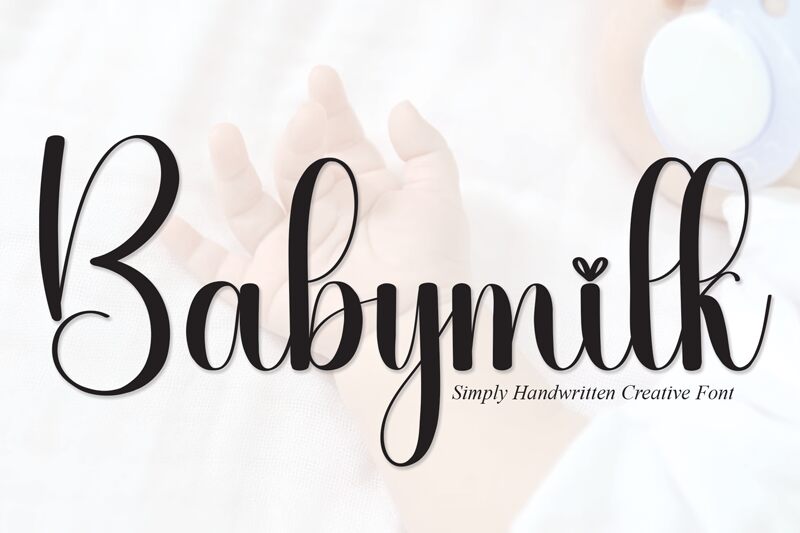
Babymilk
Babymilk font by Scratchones is an elegant handwritten font possessing a modern and flowing design style. Its embellished characters that feel approachable subtly impose what the script stands for: sophistication and charm. The focus of this free handwritten font is on consistency which makes its stylishness versatile enough for all kinds of professional applications.
Use Babymilk script in branding, packaging, carton packaging, labels, invitations, cards, quotes, headlines, magazines or newspaper titles and book or album covers. It’s also great for commercial ads especially those belonging to jewelry brands or related industries where contemporary elegance commands attention.